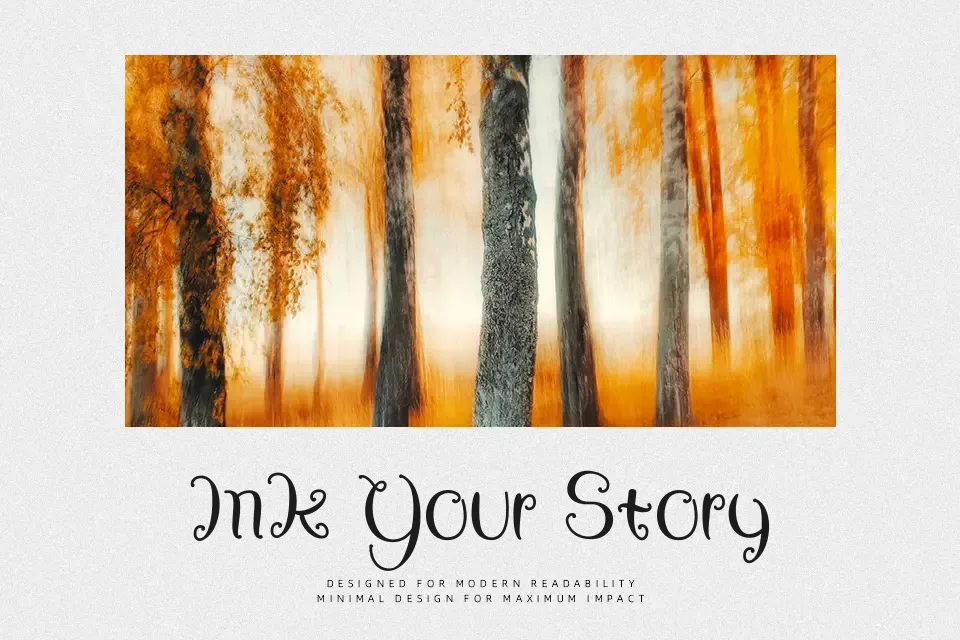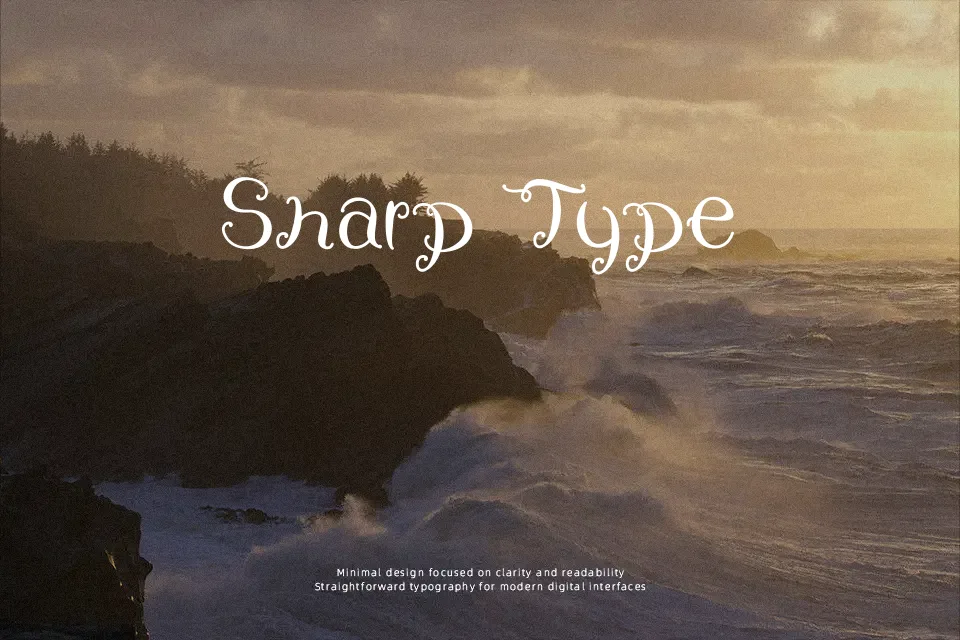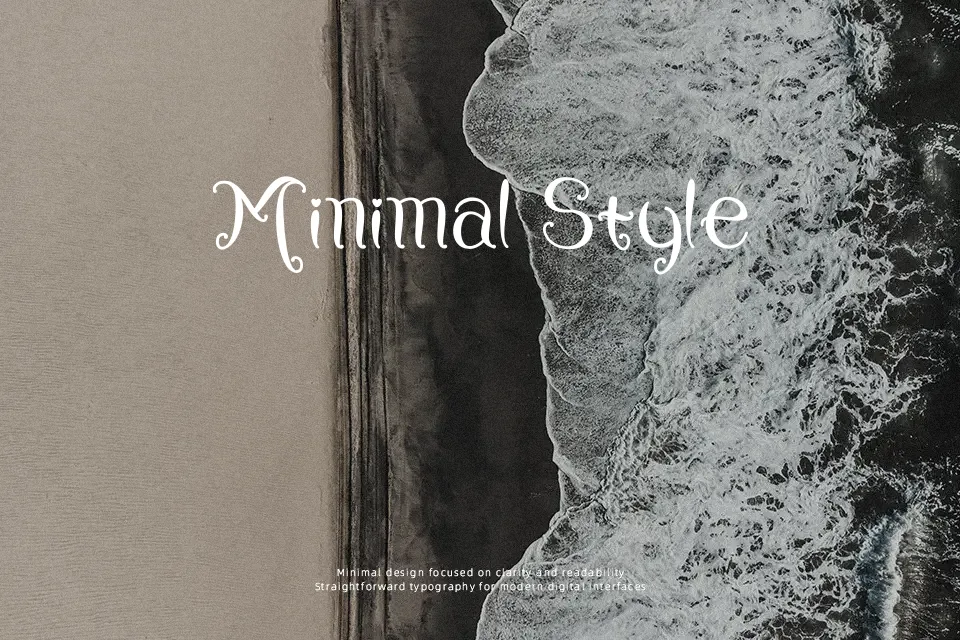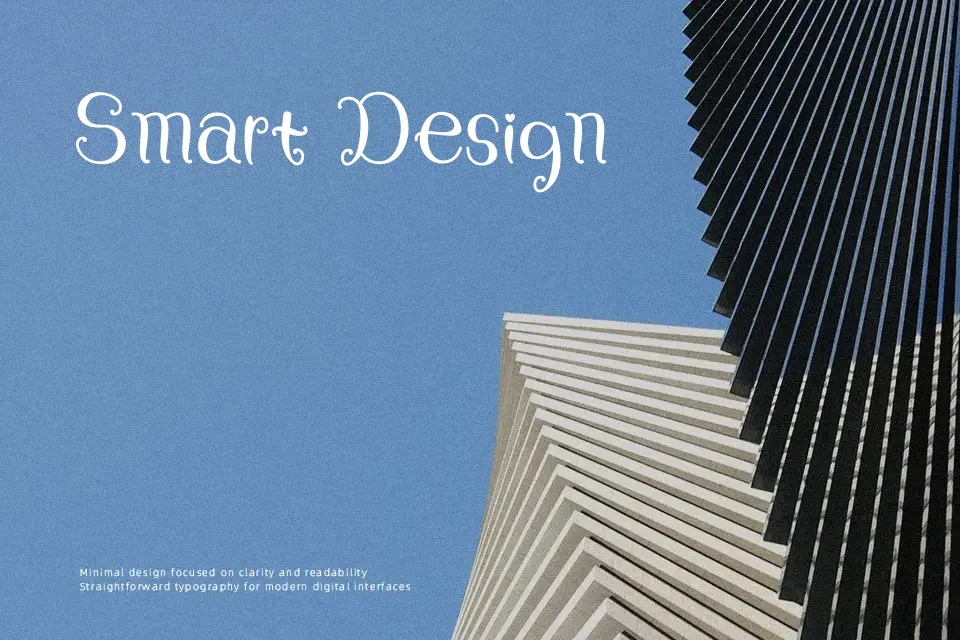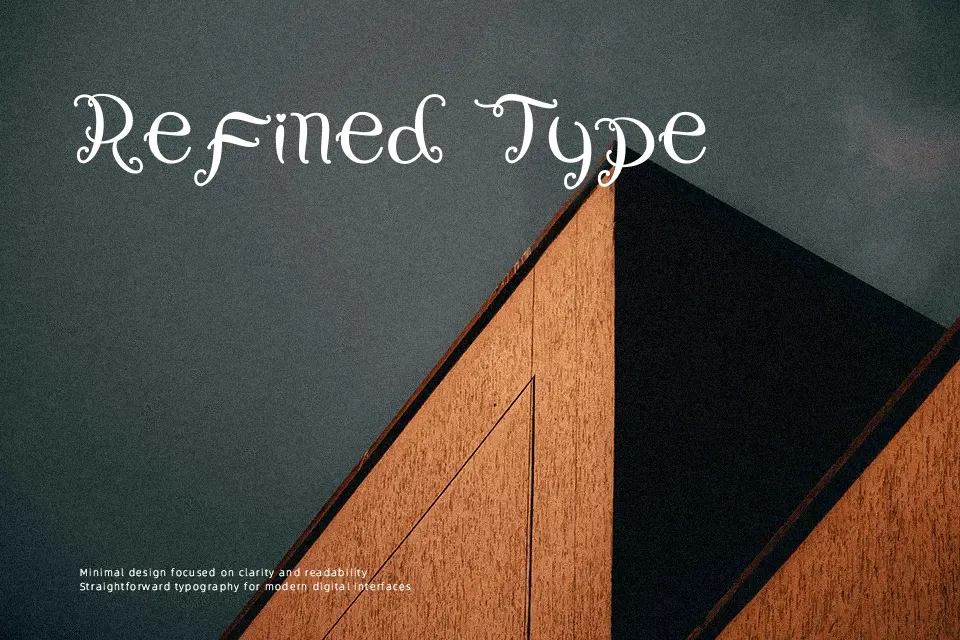
Sweety Rabbit Font
Characterized by exaggerated curls, fluid loops, and rounded terminal strokes, Sweety Rabbit Font delivers an upbeat, hand-drawn aesthetic tailored for festive presentation. The letterforms showcase medium stroke contrast with generous x-height proportions, maintaining distinct silhouettes across short phrases. Open spacing prevents adjacent swirls from colliding, ensuring comfortable readability across party invitations, merchandise labels, and nursery wall art. However, the ornate loops and stylized flourishes compromise legibility when set in dense body text or reduced to small caption sizes. In practical application, the typeface provides delightful visual impact when headline compositions give its decorative swashes sufficient room to breathe.
Best For: children’s book titles, party invitations, craft packaging, nursery wall decor
Not Ideal For: continuous body text, corporate annual reports, technical manuals, small interface labels
Perfect for headline, invitation, and kids, with a creative and decorative style.